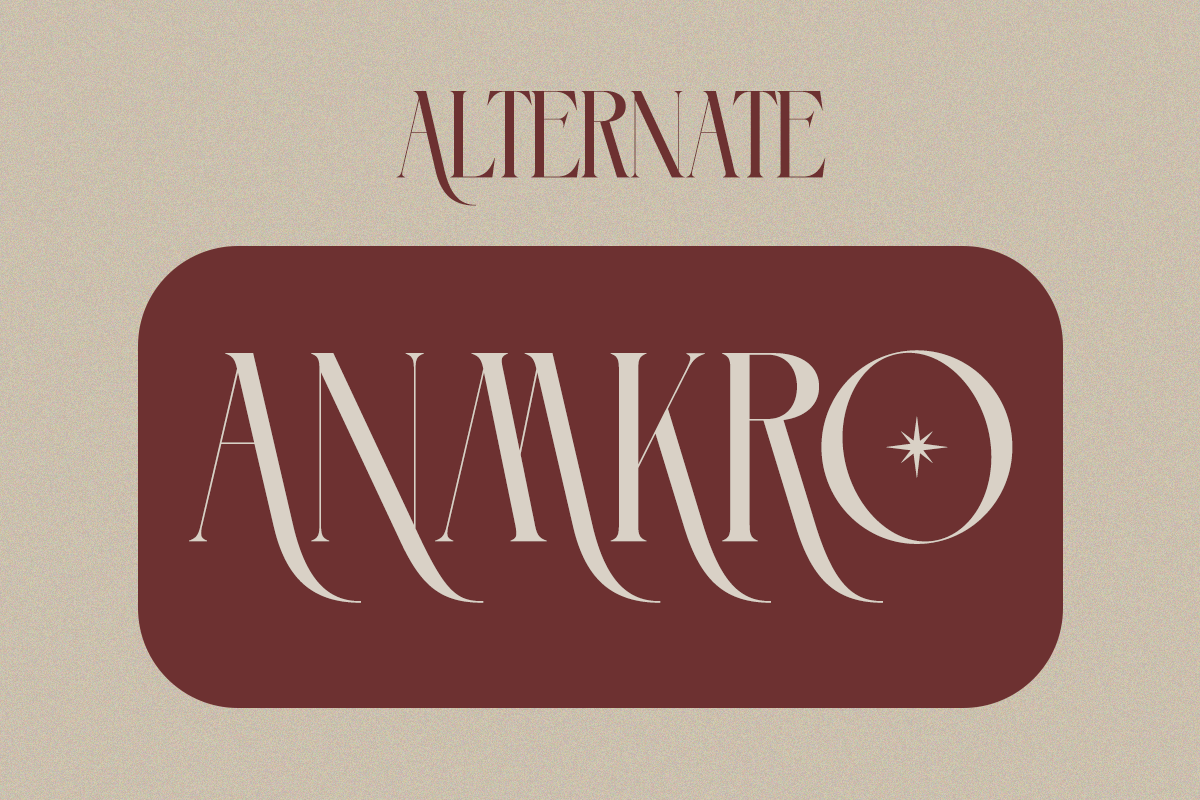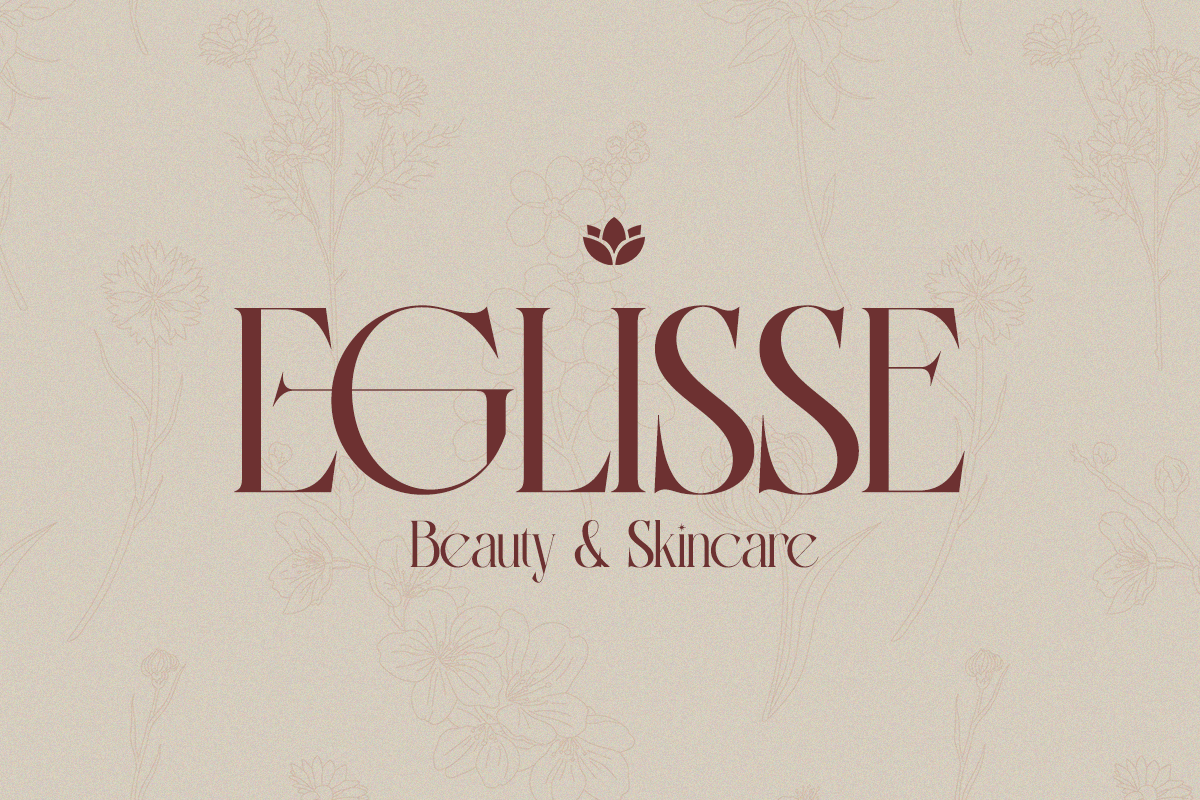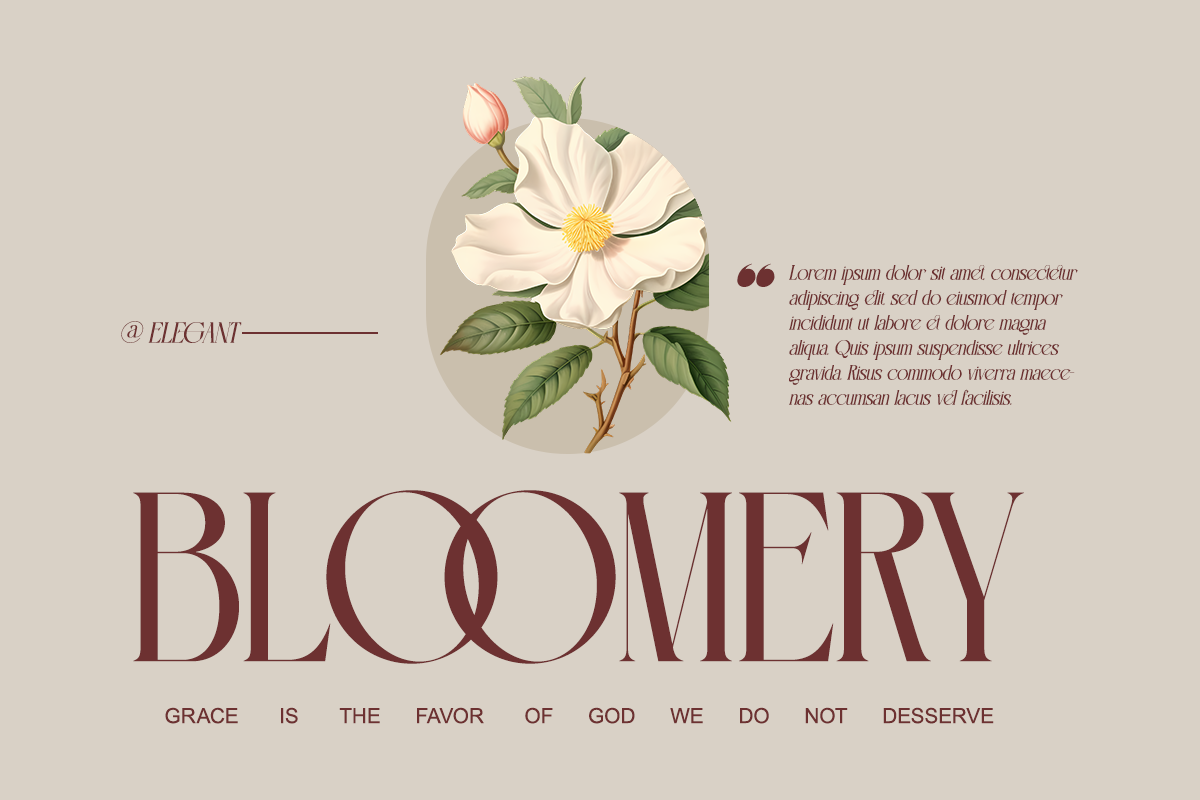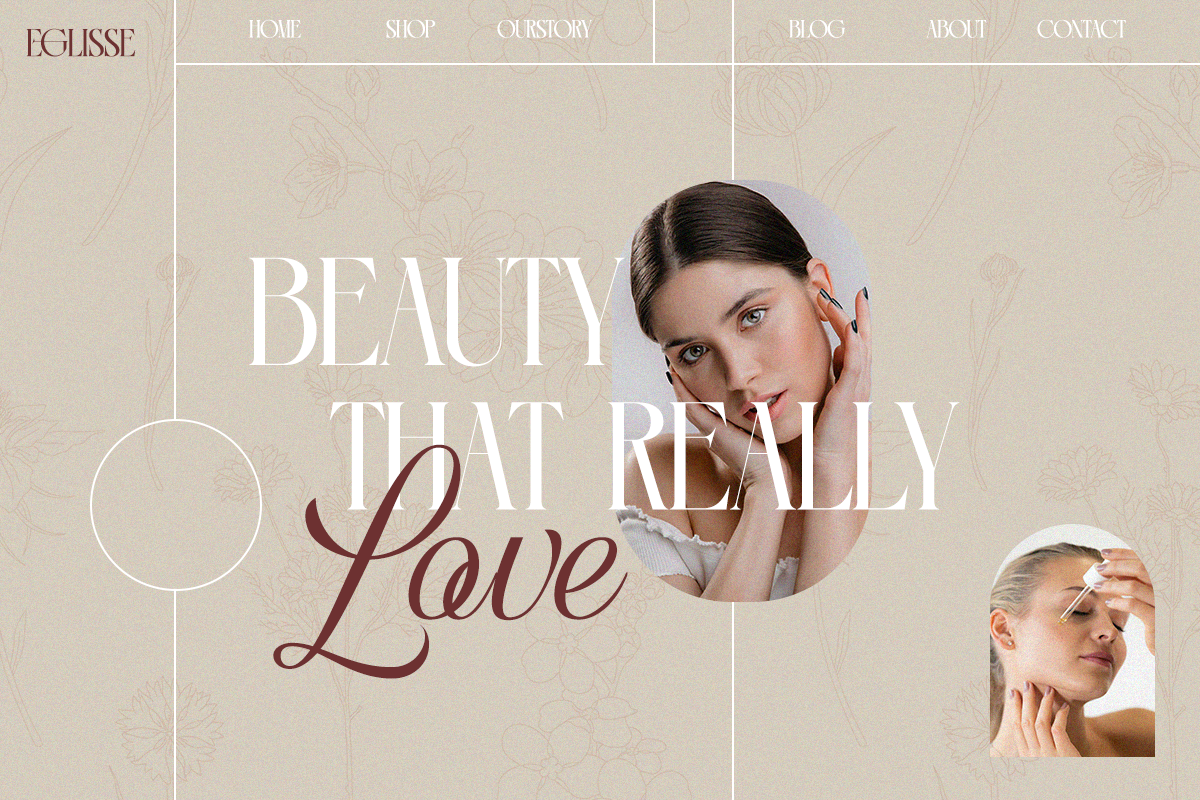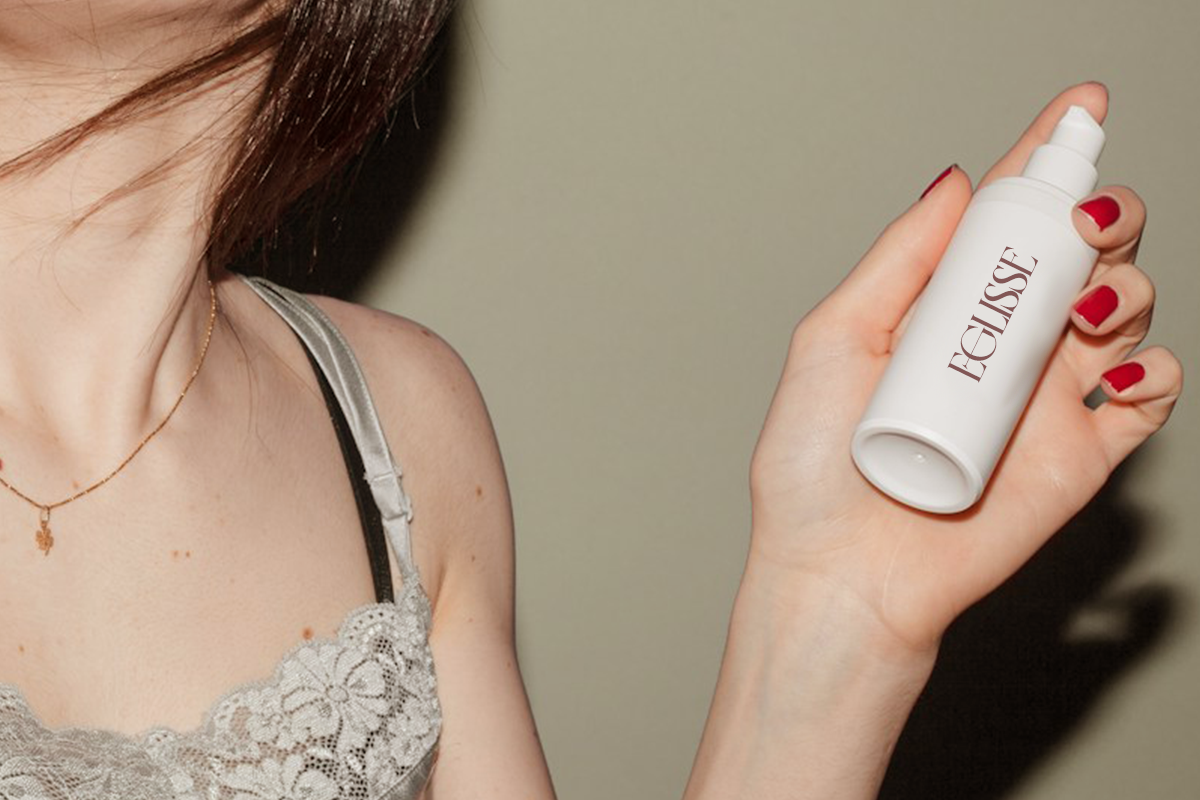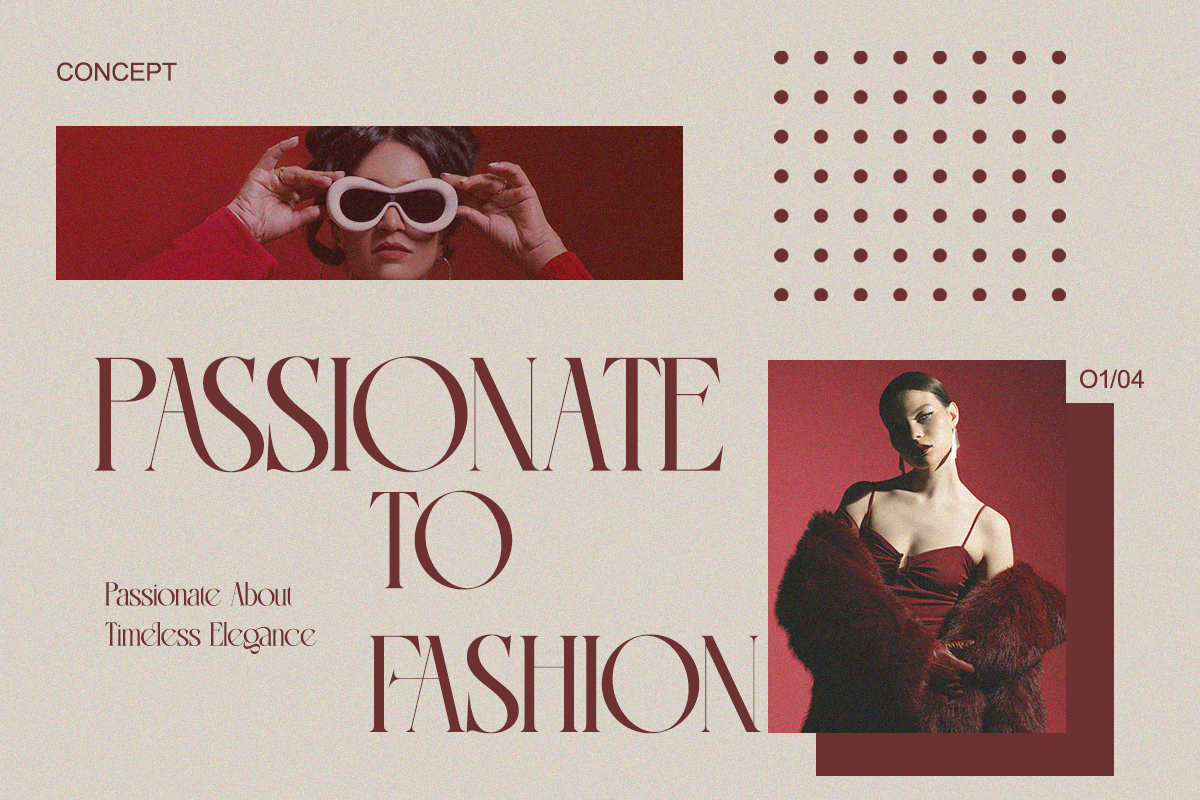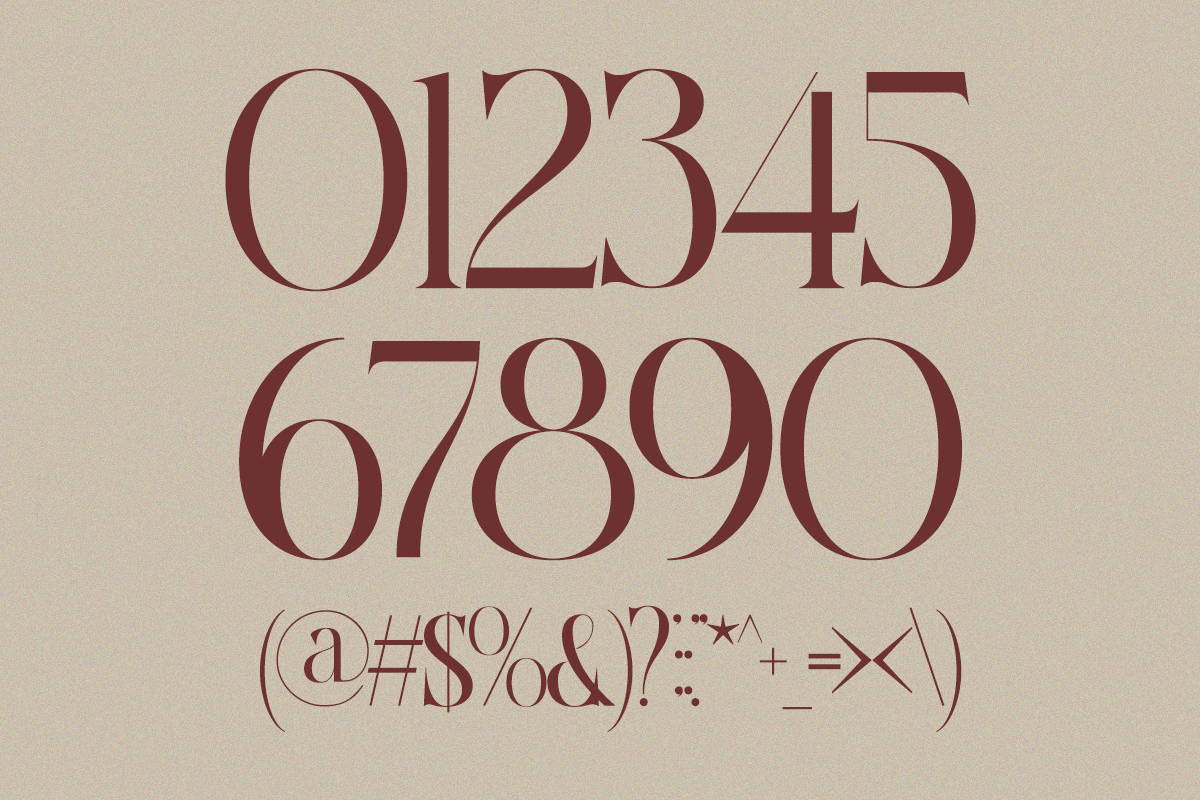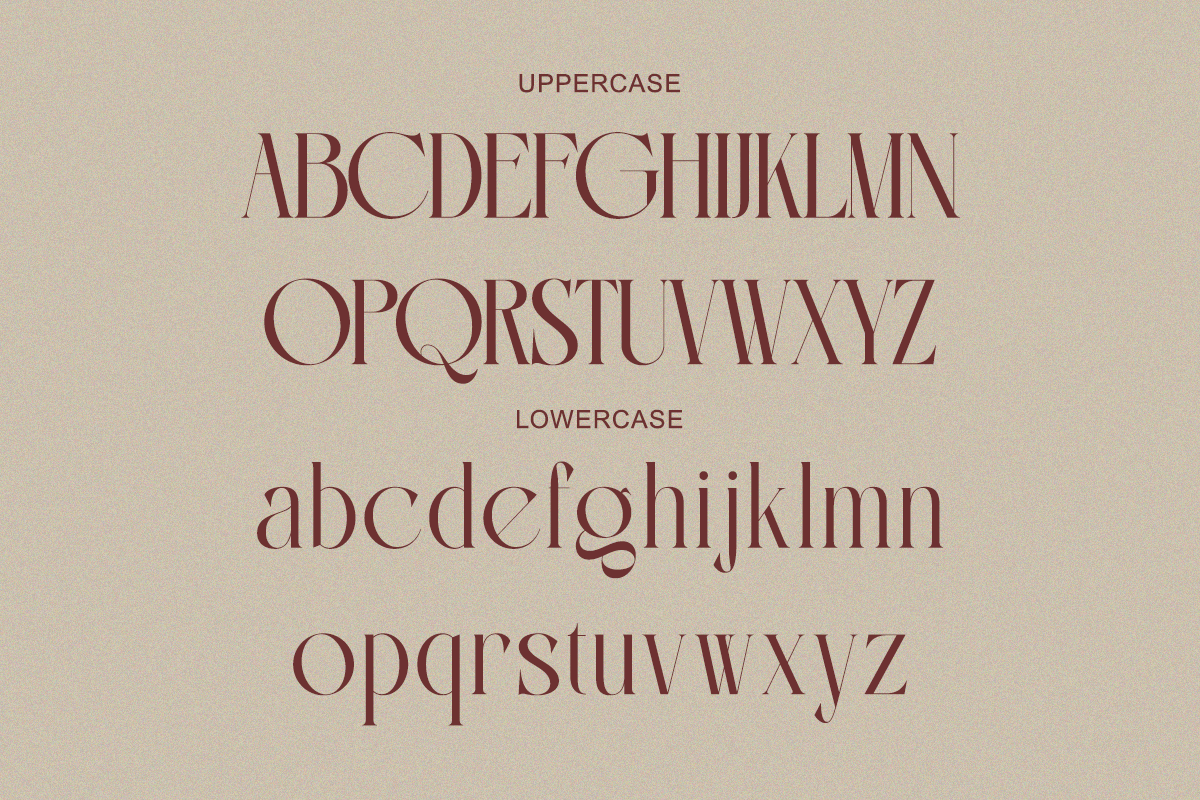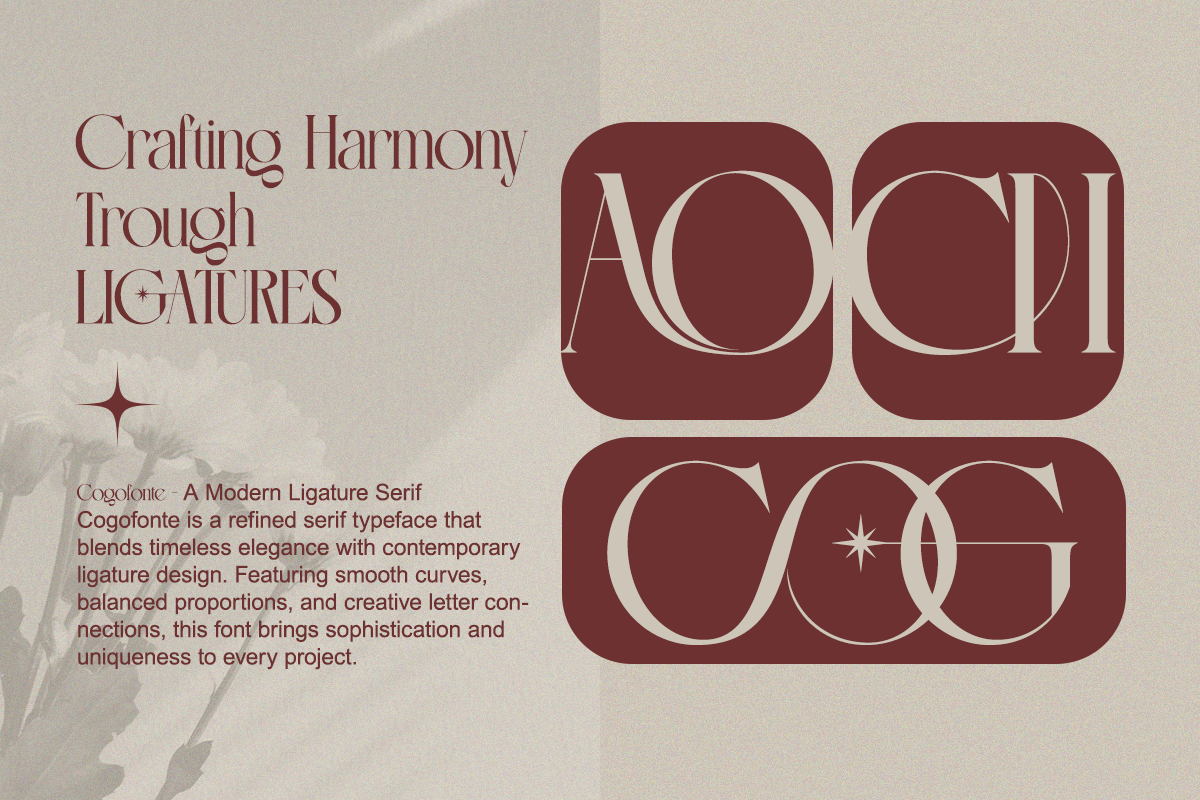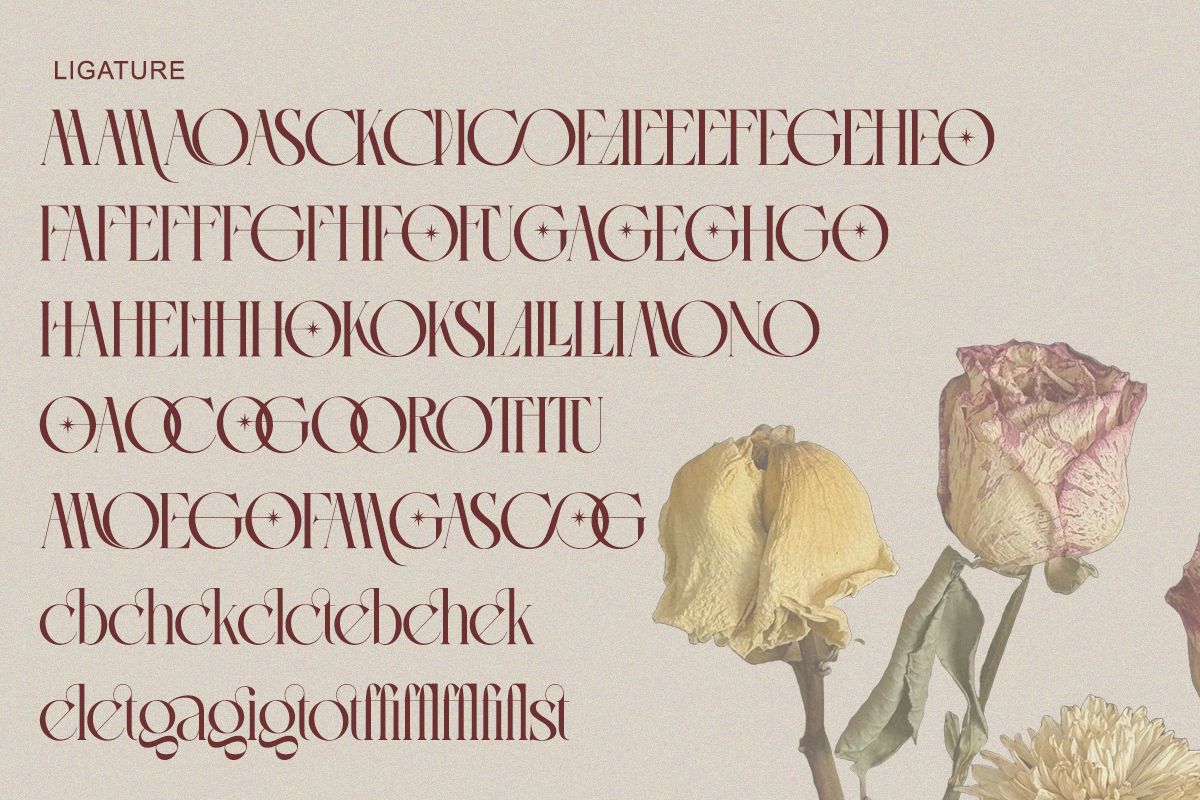
Cogofonte - Modern Geometric Serif
Introducing Cogofonte, a decorative serif typeface designed to blend classic proportions with modern aesthetic clarity. With bold geometric construction and refined ligatures, Cogofonte stands out in branding, editorial layouts, posters, and fashion packaging. Its timeless tone and intricate balance make it perfect for premium creative projects.
- Regular & Italic
- Geometric Base
Perfect For: Luxury branding, editorial headlines, creative packaging, modern logos, and poster layouts.